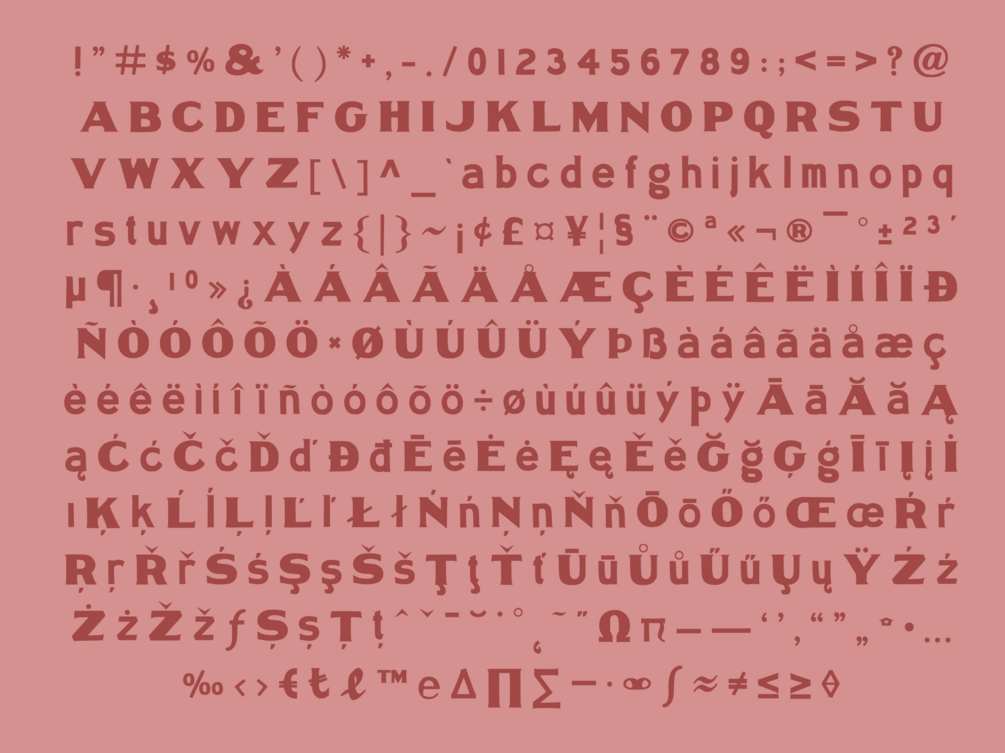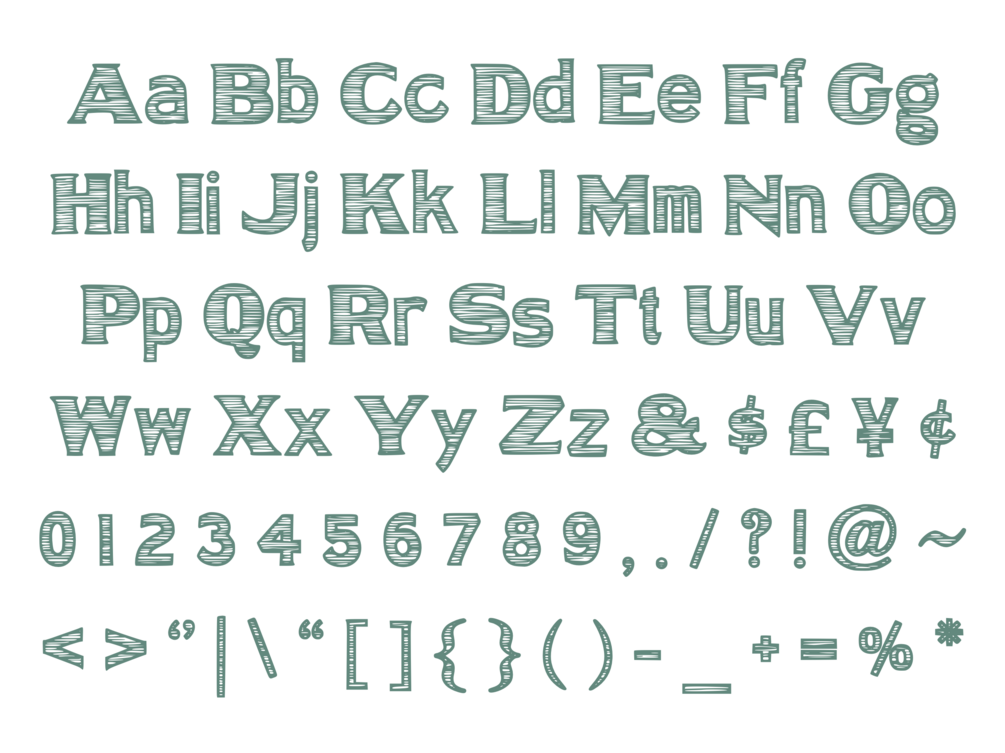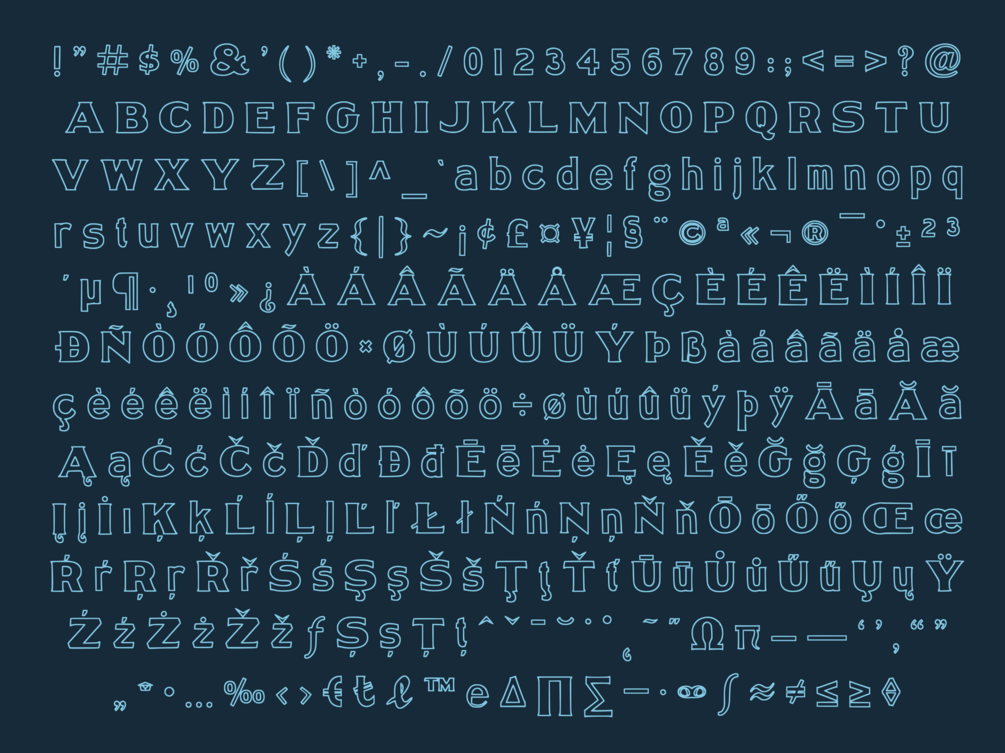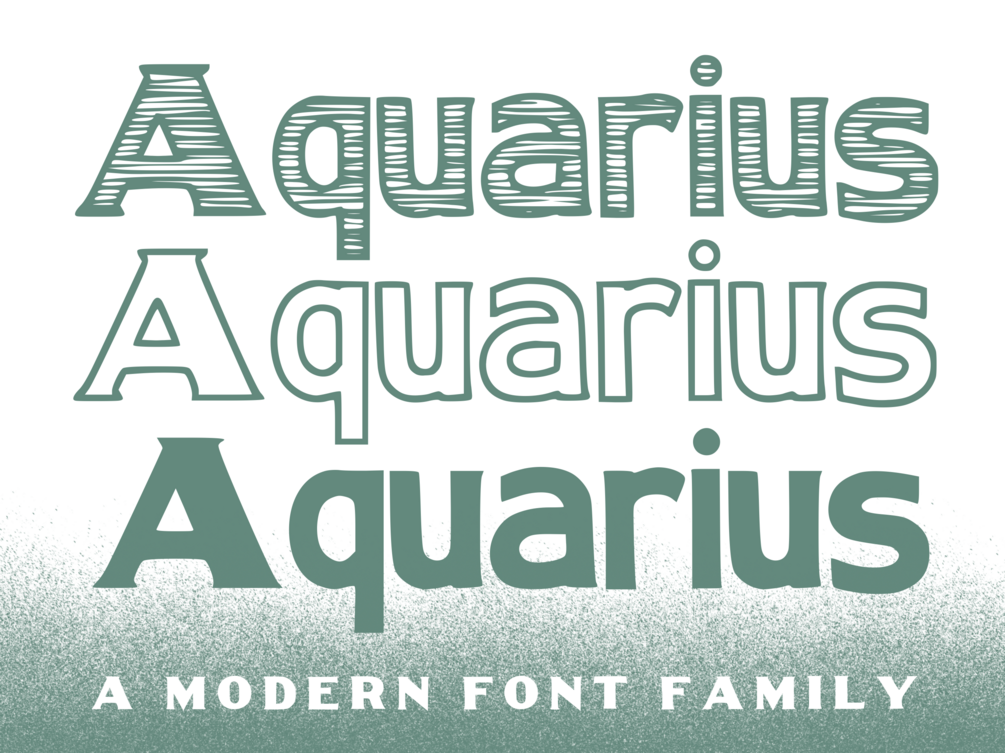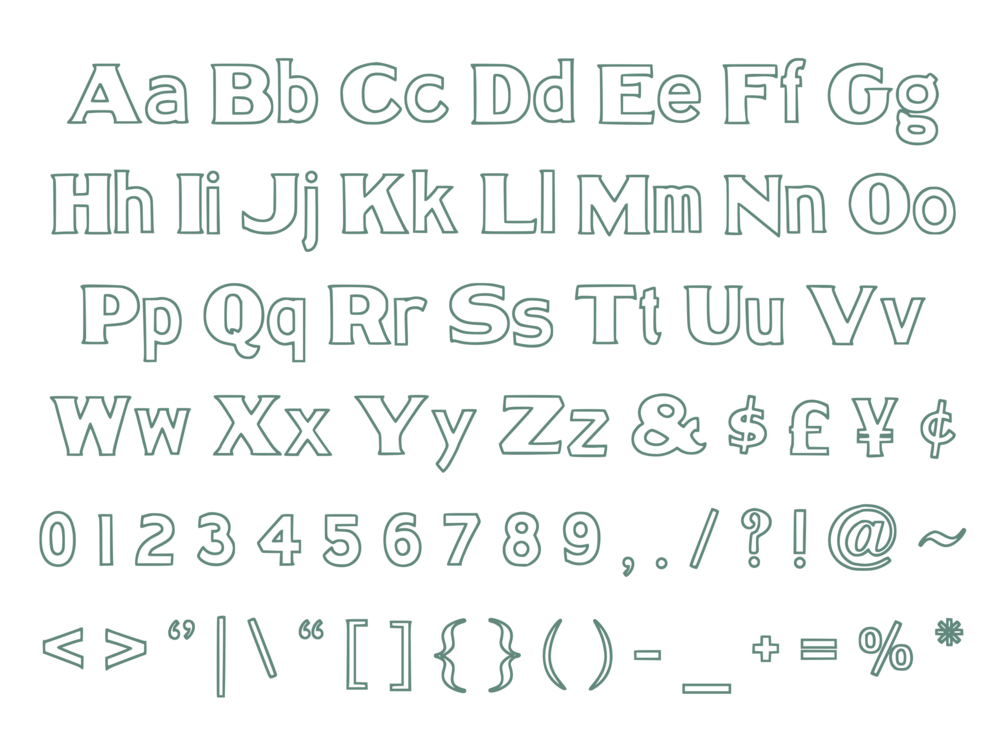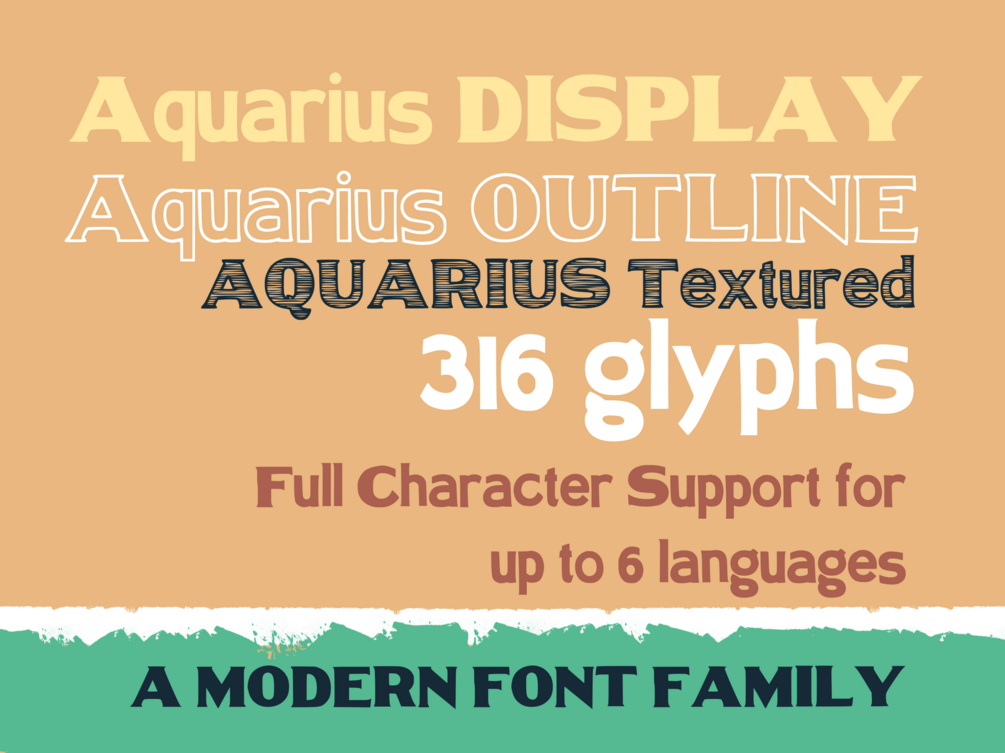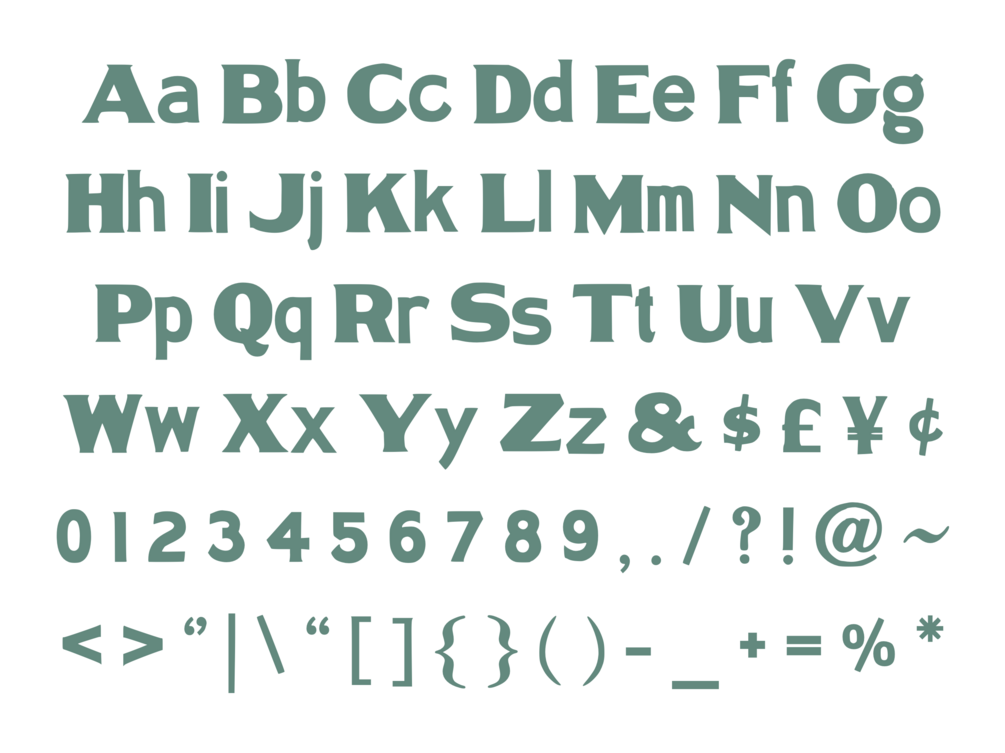
Aquarius
Aquarius is a modern slab serif font family made up of 3 typefaces featuring an outline, textured, and regular version. There are 316 glyphs in each font, making it compatible for use with multiple languages.
Aquarius Font Family
Each typeface denotes a unique aesthetic while maintaining the overall signature look of Aquarius.